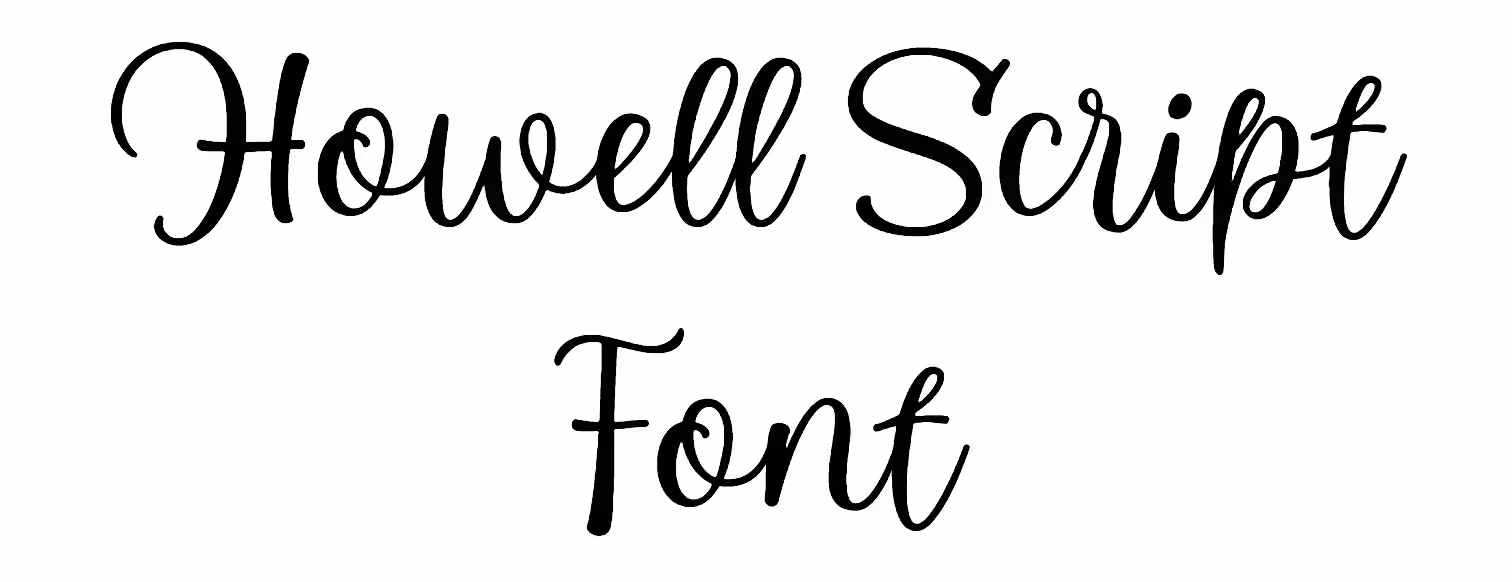
Howell Script
Howell Script is a calligraphy font designed by bustami_genesislab and published by Howell Script_genesislab. Its flowing, pen-made letters give names and short phrases a personal, polished look. You can download it for free and test it with your own words in the preview above.
What You Can Type With Howell Script
You get every letter from A to Z in both cases and all the numbers from 0 to 9, which means Howell Script can handle full sentences, dates and prices. Common punctuation such as &, !, ? and @ is included as well. It also has the accented letters you need for Spanish, French, German, Portuguese and Italian.
Where Howell Script Works Best
Designers usually reach for fonts like Howell Script when they're making wedding invitations, certificates and elegant quotes. Script fonts read best in short bursts, so keep it to names, titles and one-line quotes. Skip all caps: script capitals are drawn to start a word, not to fill one.
Does Howell Script support accented letters?
Yes. Howell Script includes the accented letters needed for Spanish, French, German, Portuguese and Italian, so it works for more than just English.